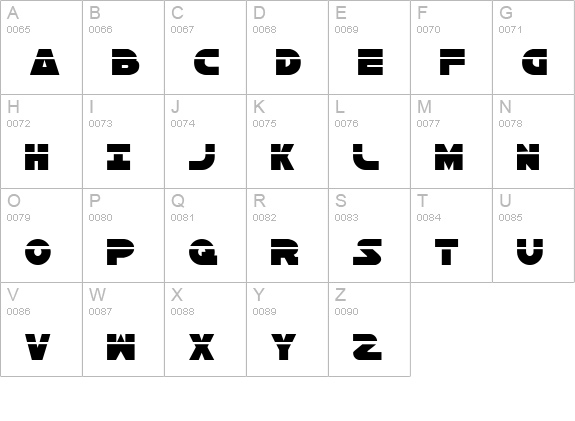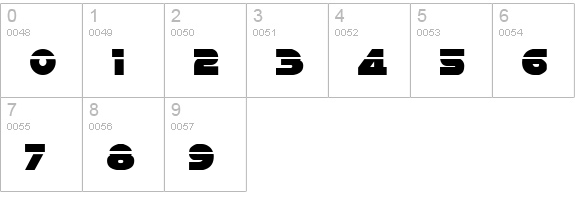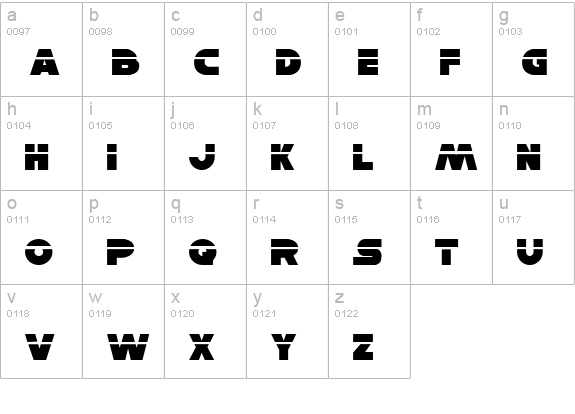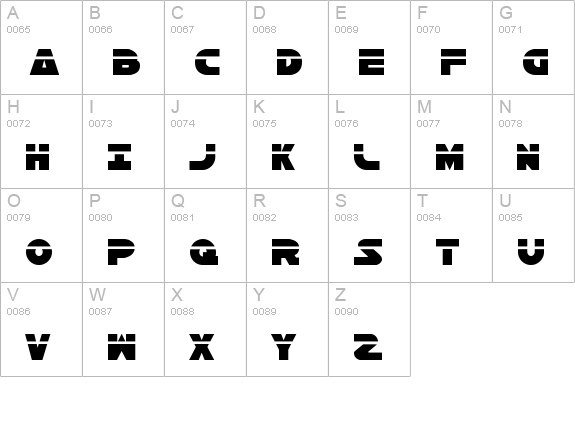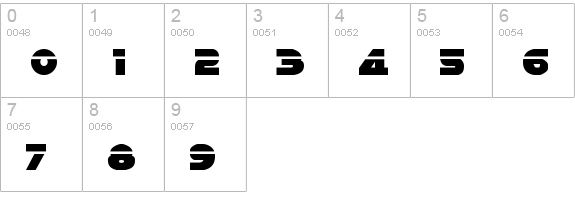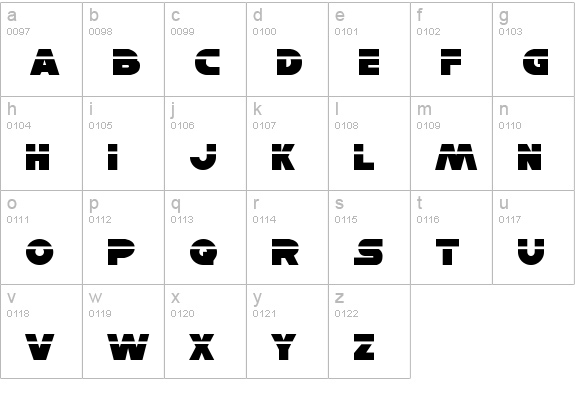
Han Solo Laser Font Details
Introducing the Han Solo Laser font, a remarkable typeface that brings the iconic character's adventurous spirit and daring charm to life. With its sleek and futuristic design, this font captures the essence of Han Solo's intergalactic journeys aboard the Millennium Falcon. The Han Solo Laser font is perfect for any Star Wars enthusiast, graphic designer, or typographic aficionado looking to add a touch of rebellion and excitement to their projects. Its sharp lines and bold strokes create an electrifying visual impact, making it ideal for headlines, posters, logos, and more. But what makes the Han Solo Laser font truly special is that it is available free of charge. That's right, you can freely download this captivating typeface at FontsMarket.com, a trusted platform for high-quality fonts. With just a few clicks, you can unleash the power of Han Solo's legendary persona on your creative endeavors. Whether you're creating a Star Wars-themed website, designing a fan-made movie poster, or adding a touch of sci-fi flair to your personal blog, the Han Solo Laser font will undoubtedly elevate your typography game to new heights. Its versatility and eye-catching appeal make it a must-have for any designer seeking to evoke the spirit of adventure and rebellion. So, go ahead and grab your free copy of the Han Solo Laser font today at FontsMarket.com. Let this dynamic typeface transport you to a galaxy far, far away, where the possibilities for creative expression are limitless. May the force be with you as you embark on your typographic journey with the Han Solo Laser font!